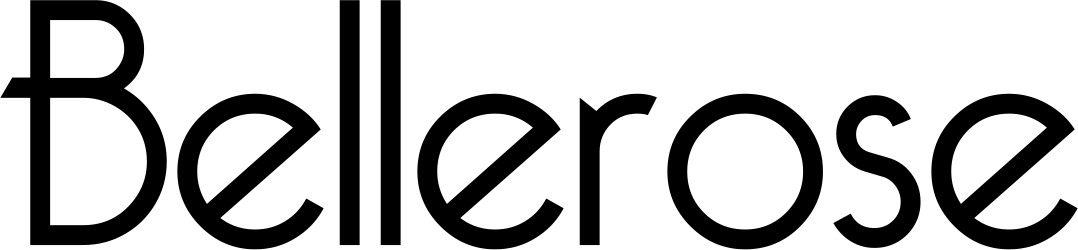
Bellerose Font
Carry out a classy look for your typography by selective Bellerose which is a stylish retro font! The thin bold characters of this particular retro font are elegant, energetic, and informal. If you would like to raise awareness of your typography it’s best to download it immediately.
Mixed case alphabets, numbers, and punctuations are available for Bellerose. The most common places that you might want to consider utilizing this retro font are books, perfume, magazines, adverts, packaging or beading, and logos.